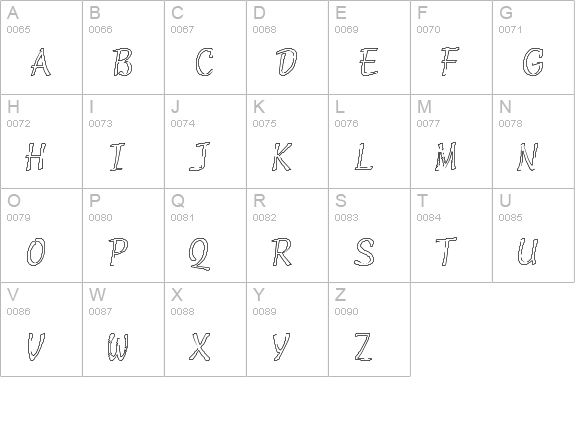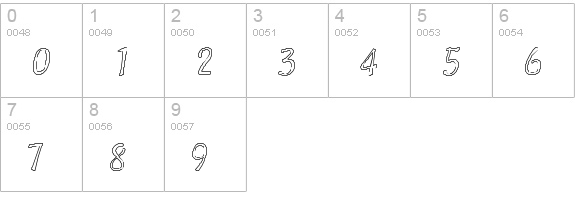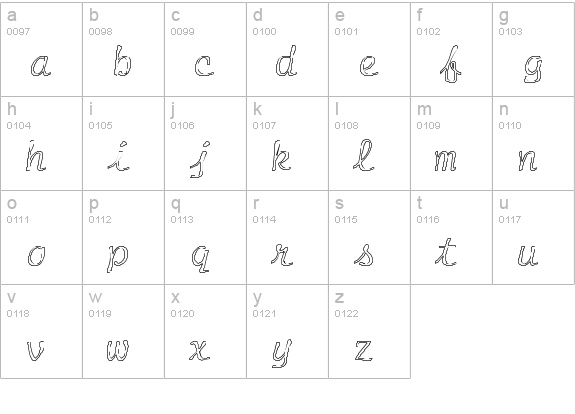
MangusteOpen Font Details
Introducing MangusteOpen, a modern and stylish font that is perfect for a variety of design projects. This versatile typeface features clean lines and a sleek appearance, making it ideal for both digital and print applications. Whether you're working on a logo, website, or marketing materials, MangusteOpen is sure to make a statement. What makes MangusteOpen even more appealing is that it is available for free download at FontsMarket.com. This means you can access this high-quality font without any cost, allowing you to elevate your designs without breaking the bank. Don't miss out on the opportunity to add MangusteOpen to your font collection today and take your projects to the next level.